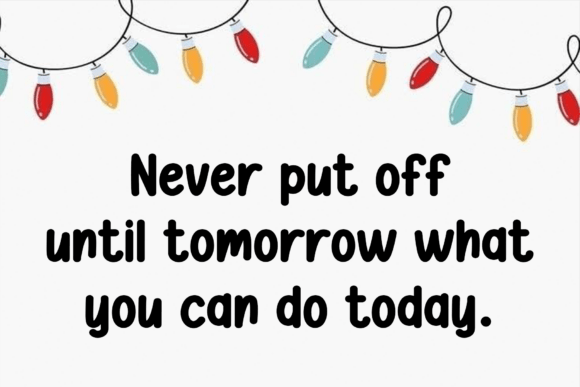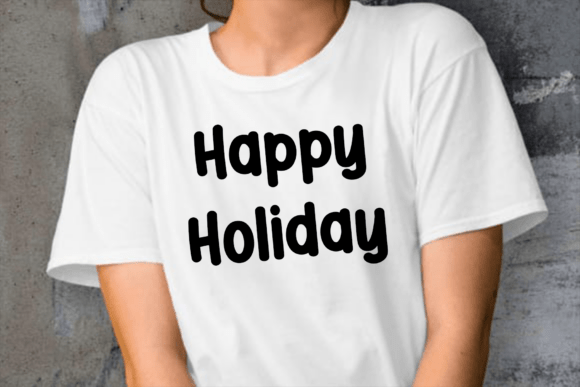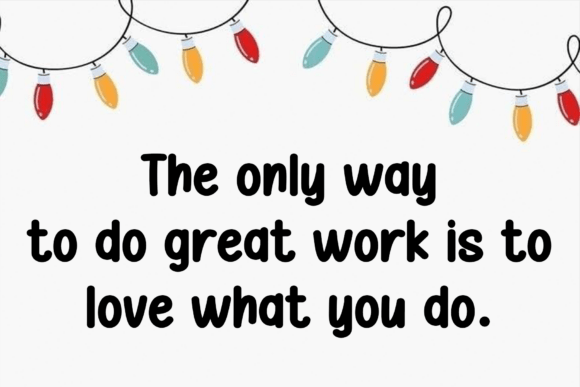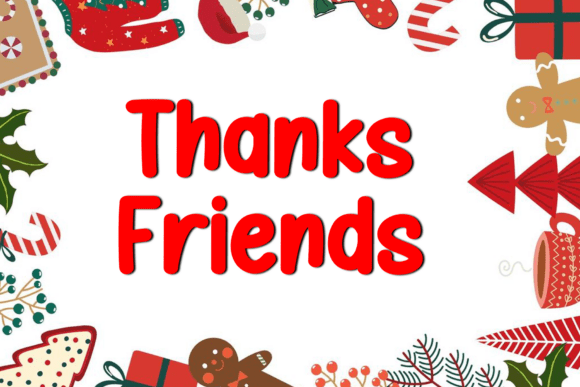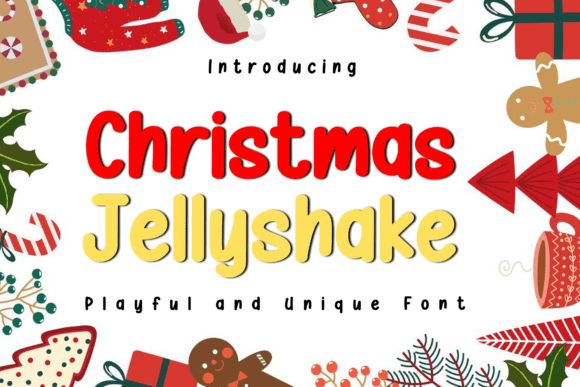
Introducing Christmas Jellyshake Font: The Perfect Festive Addition to Your Designs
Are you looking for a font that embodies the fun and playfulness of the holiday season? Look no further than Christmas Jellyshake Font! This wonderfully fun, bouncy, and rounded display font is perfect for adding a touch of festive cheer to your designs. In this article, we’ll dive into the features and benefits of Christmas Jellyshake Font, and explore how you can use it to create engaging and eye-catching designs for the holiday season.
The Unique Characteristics of Christmas Jellyshake Font
Christmas Jellyshake Font boasts thick, soft, hand-drawn letters that are sure to capture the attention of your audience. Its playful, irregular baseline adds to its charm, creating an instantly cheerful and approachable mood. The font’s rounded edges and smooth curves give it a friendly and approachable feel, making it perfect for designs that need a personal touch.
Perfect for Festive Designs
Christmas Jellyshake Font is specifically designed for the festive season, making it an excellent choice for a variety of holiday projects. Here are some ideas for using this font:
- Children’s holiday projects: The font’s playful and fun design makes it perfect for kids’ holiday crafts, activity sheets, and educational materials.
- Casual Christmas cards: Add a personal touch to your holiday cards with Christmas Jellyshake Font, creating a warm and inviting atmosphere for your loved ones.
- Seasonal merchandise: Use the font to create eye-catching labels, packaging, and branding for your holiday products, such as cookies, candies, and other treats.
- Bakery branding: Give your bakery a festive makeover with Christmas Jellyshake Font, perfect for holiday promotions, menus, and in-store displays.
Why Choose Christmas Jellyshake Font?
So why choose Christmas Jellyshake Font over other festive fonts? Here are just a few reasons:
- Unique and playful design: The font’s hand-drawn letters and irregular baseline make it stand out from more traditional fonts.
- Highly visible: The thick, soft letters ensure that your text is easy to read, even from a distance.
- Versatile: Use Christmas Jellyshake Font for a variety of design projects, from digital graphics to print materials.
Tips for Using Christmas Jellyshake Font
To get the most out of Christmas Jellyshake Font, here are a few tips:
- Pair with complementary fonts: Combine Christmas Jellyshake Font with simpler fonts to create visual interest and hierarchy in your designs.
- Experiment with colors: Try out different color schemes to match your brand or design aesthetic, or go bold with bright, festive colors.
- Use it sparingly: While Christmas Jellyshake Font is perfect for titles and headings, use it sparingly to avoid overwhelming your design.
Christmas Jellyshake Font is a wonderfully fun and playful font that’s sure to add a touch of festive cheer to your designs. With its unique characteristics, versatility, and ease of use, it’s the perfect choice for designers and crafters looking to create engaging and eye-catching holiday projects. So why wait? Download Christmas Jellyshake Font today and get creative with your holiday designs!